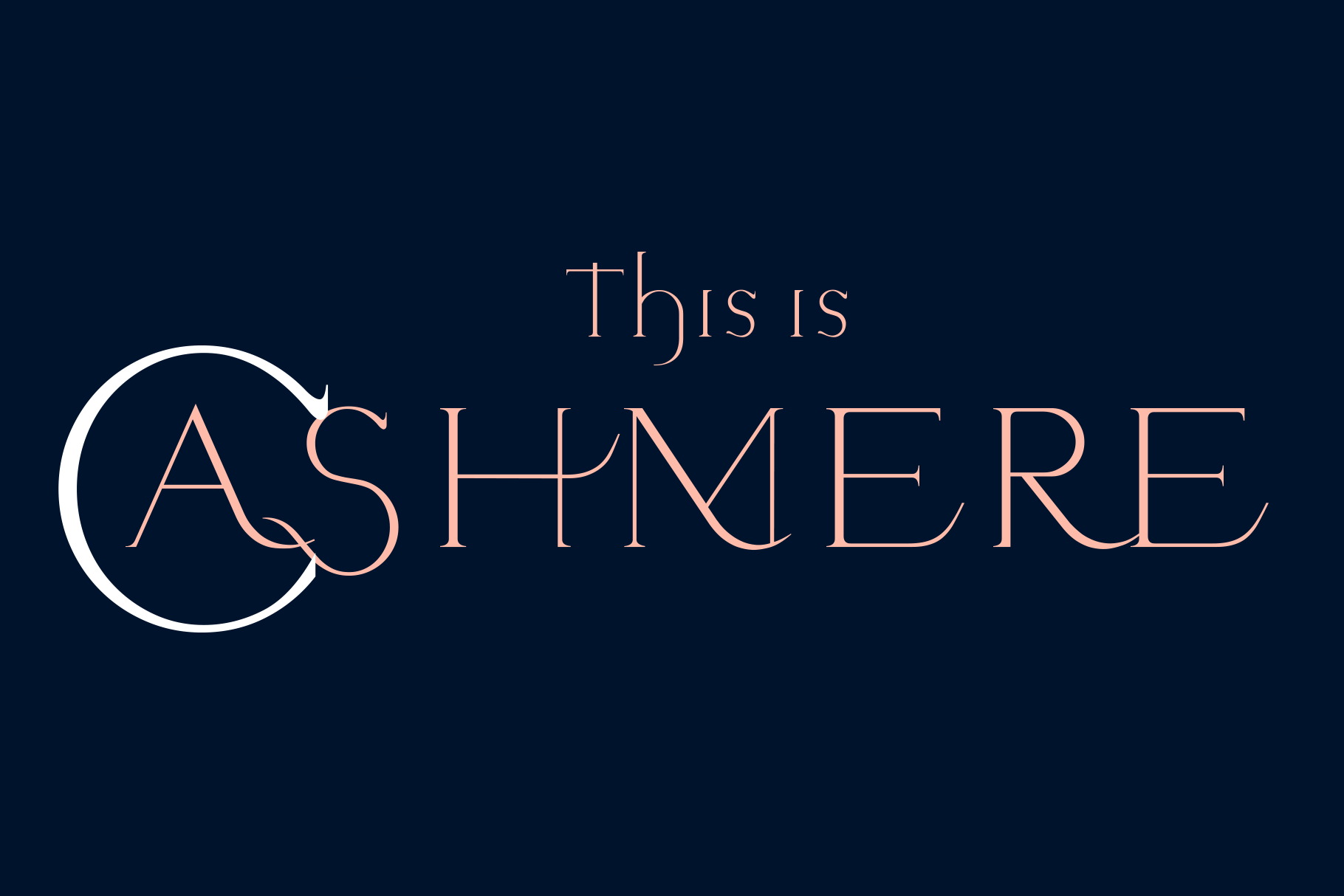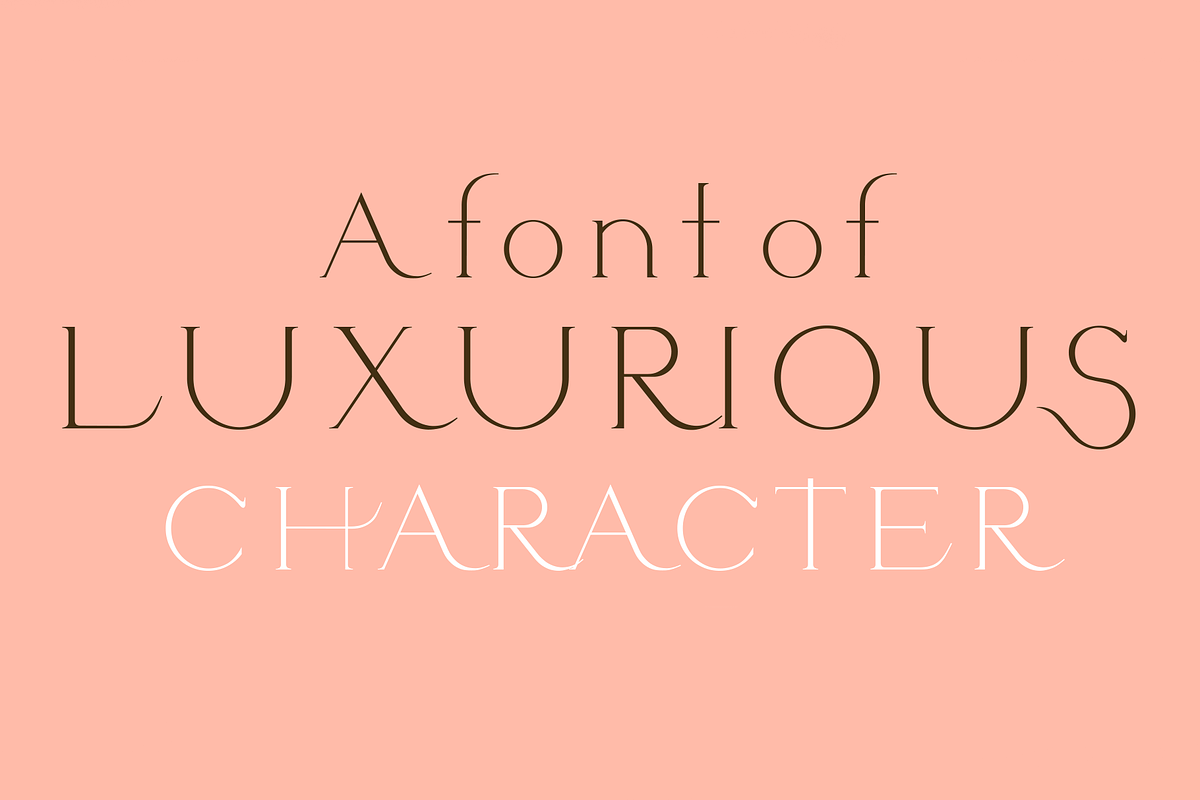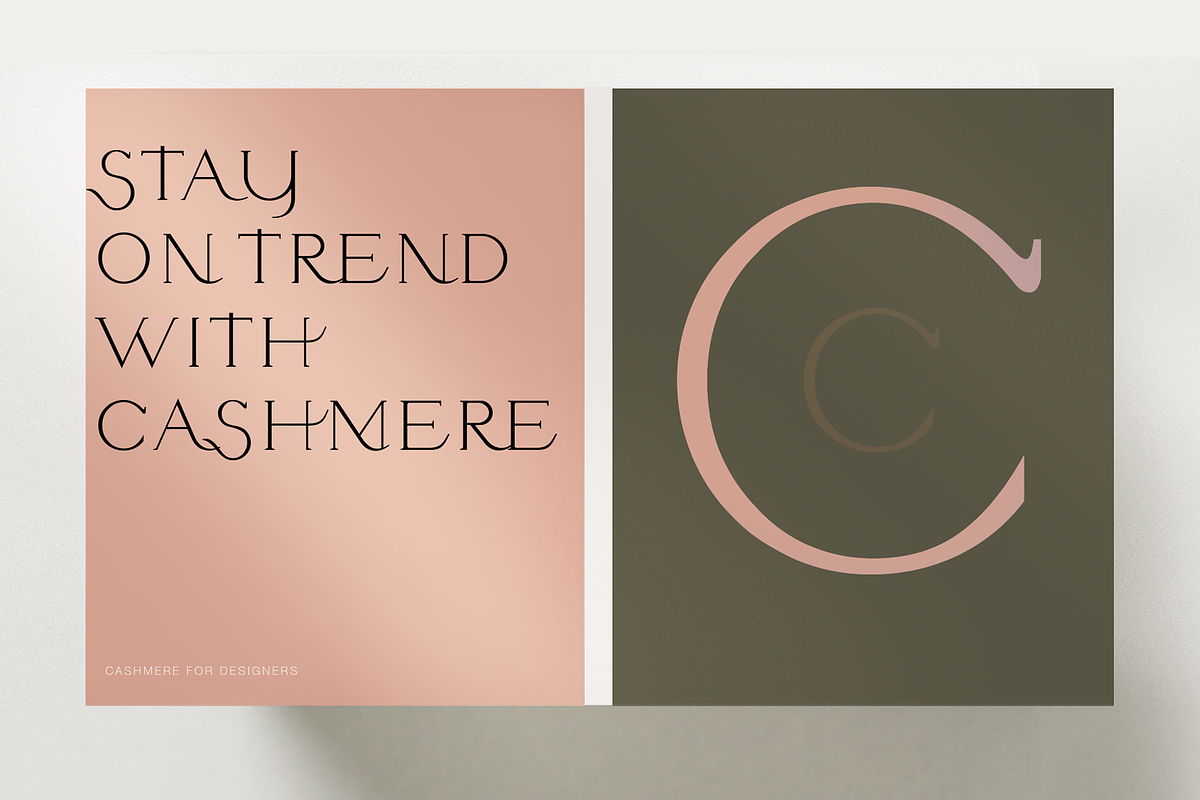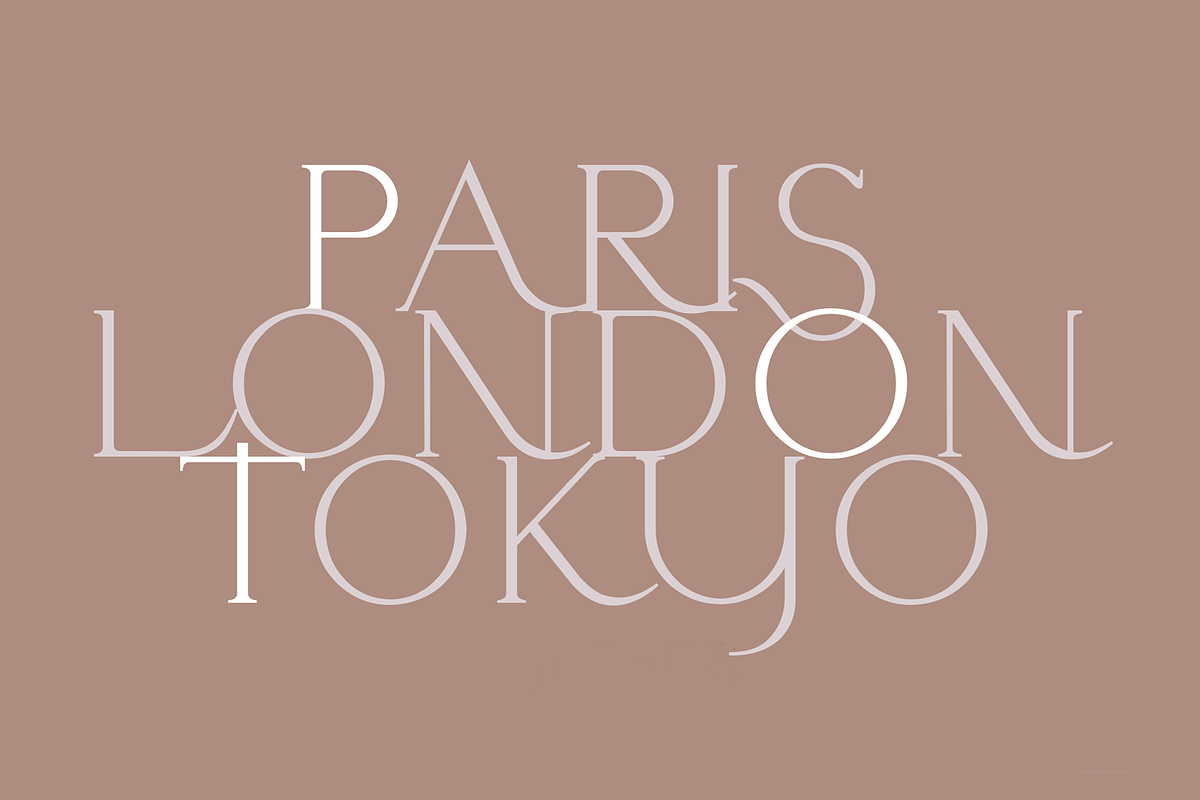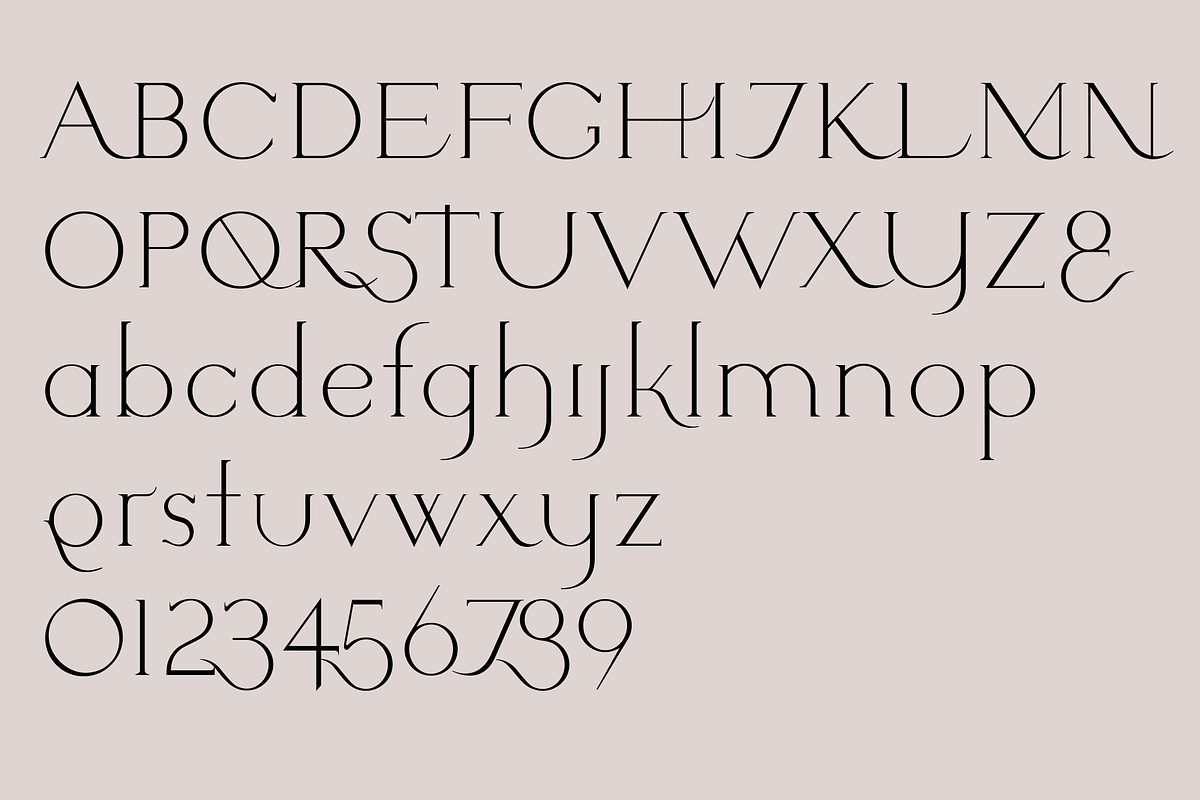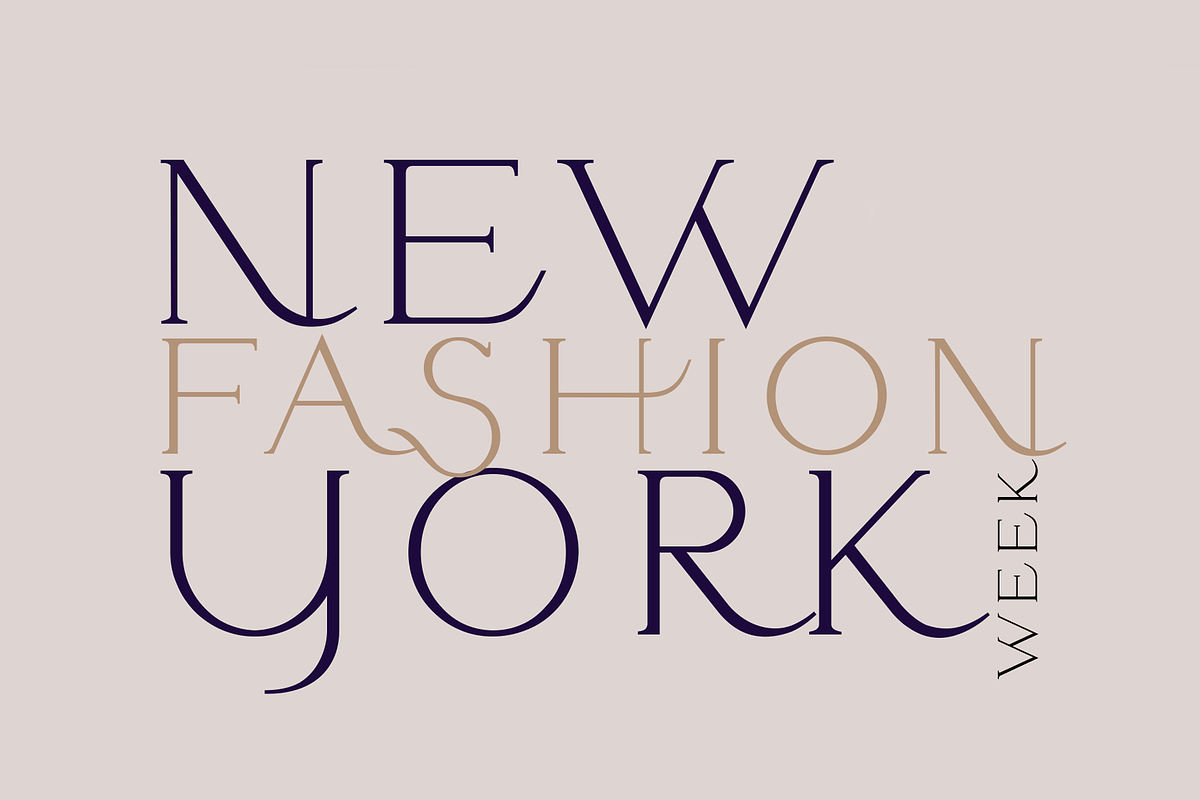
Cashmere. Beautiful new serif font
Cashmere is a beautifully expressive new font for designers from LostandFoundry. This typeface has the look and feel of a classic serif font, but combined with some fashionable, modern touches.
Cashmere is a chic and stylish font that gives you a point of difference from other traditional serif fonts you might have in your library.
Use it in your design projects - in headlines, logos, packaging designs, wedding designs, titles and text. And online in websites, blogs, vlog titles, Youtube creator titles and social media post titles. Cashmere comes in 2 weights and supports French, German and other European languages.